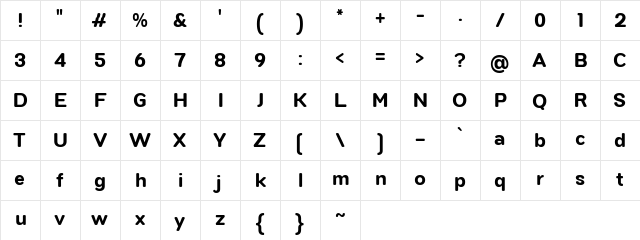
Monkhang Bold
Design Context for Monkhang Typeface
Monkhang offers clean, dependable letterforms without strong stylistic allegiance, making it a practical choice for designers who need flexibility. The heavy weight commands attention and anchors typographic hierarchies.
Pro Tip: Pair Monkhang with a font of contrasting weight or personality to build a more expressive typographic hierarchy.